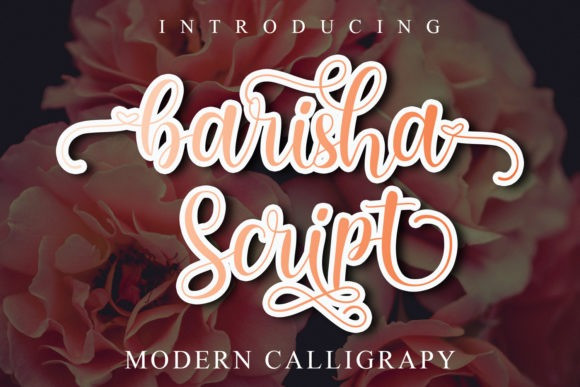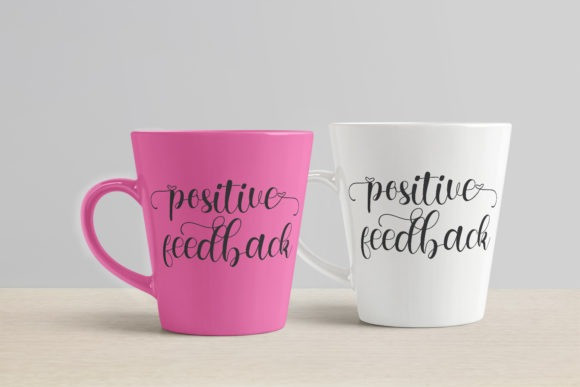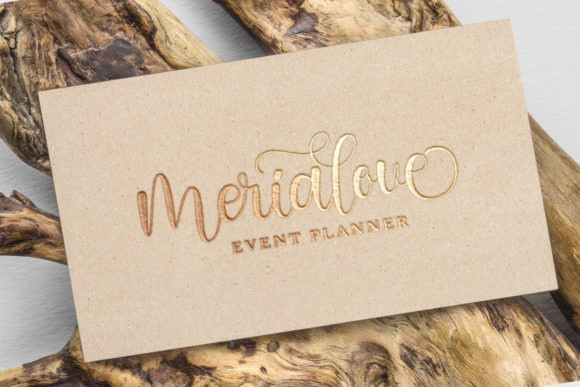
Barisha Calligraphy Font
Barisha Script is a flowing and incredibly distinct handwritten font. This font is PUA encoded which means you can access all of the glyphs and swashes with ease! It features a varying baseline, smooth lines, gorgeous glyphs and stunning alternates. Fall in love with its versatile style and use it to create gorgeous wedding invitations, beautiful stationary art, eye-catching social media posts, and much more!